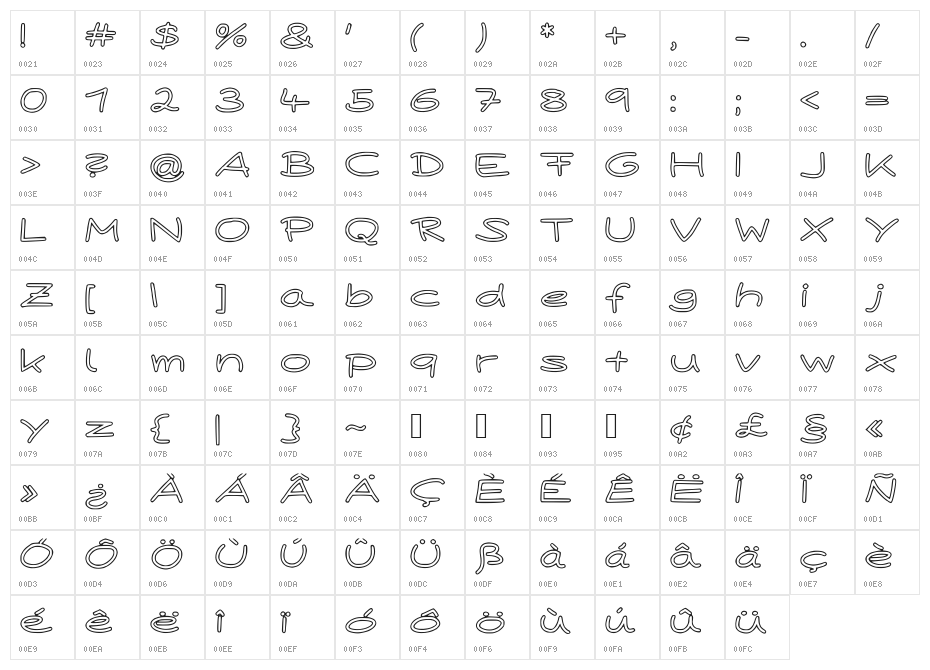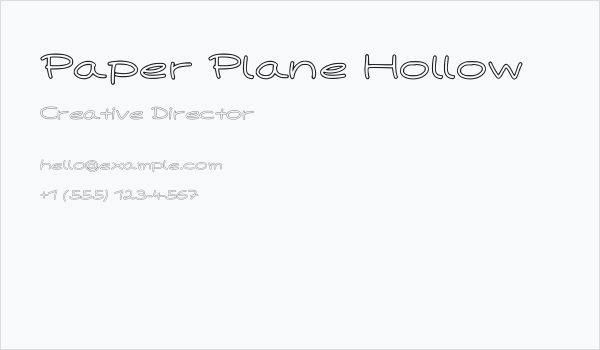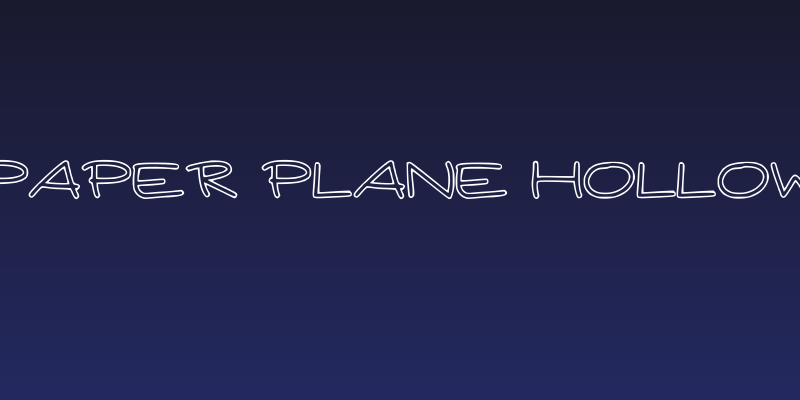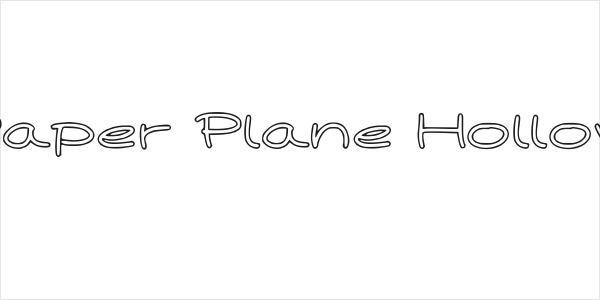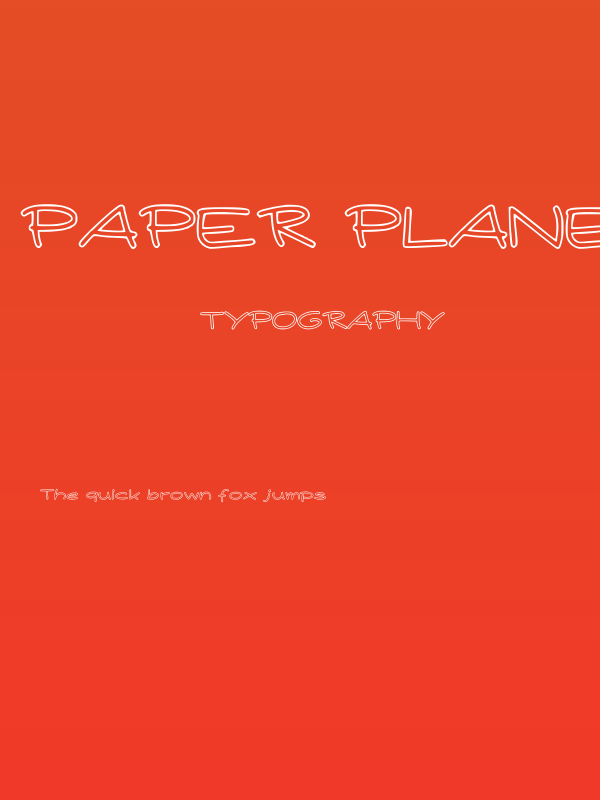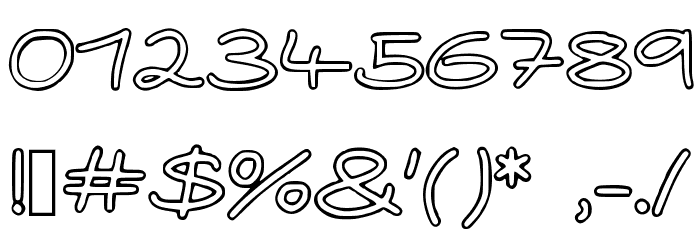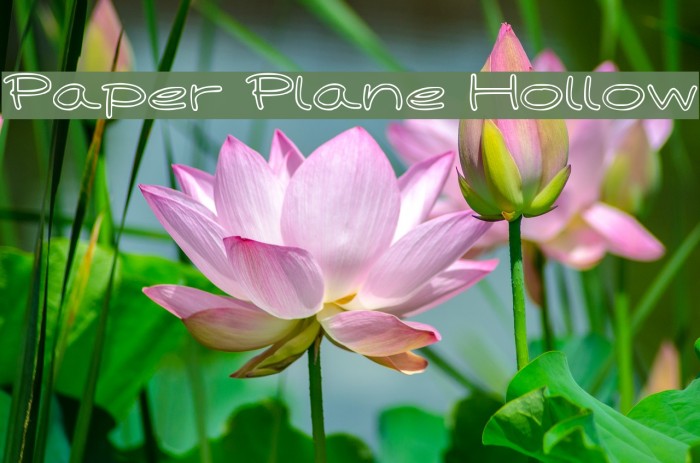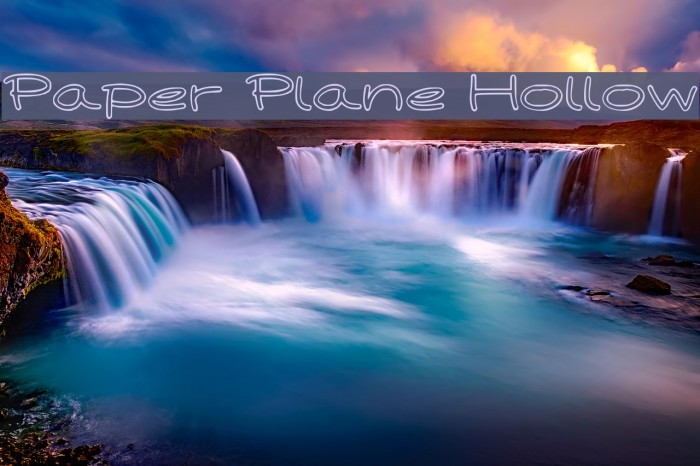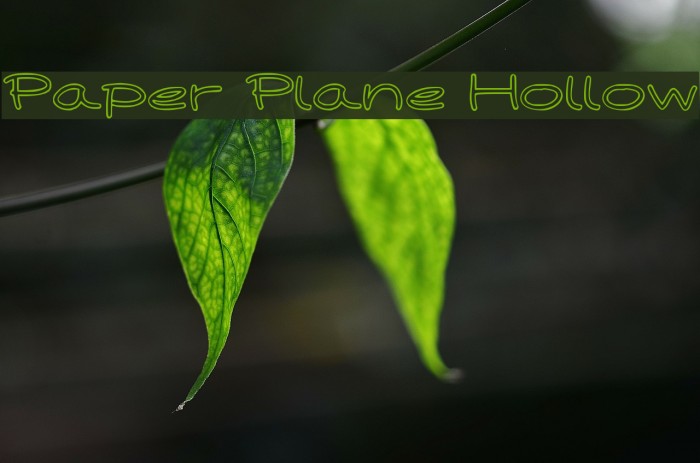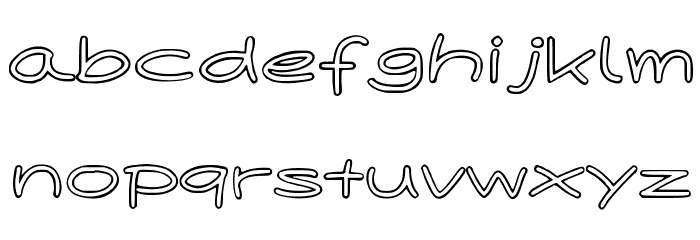
Paper Plane Hollow Font
Paper Plane Hollow Description
This font features a playful and whimsical design with hollow, outlined characters that give it a light and airy feel. The letters are crafted with smooth, rounded edges and a consistent stroke width, creating a cohesive and harmonious appearance. The uppercase and lowercase letters maintain a uniform style, while the numbers and special characters complement the overall aesthetic. This font's unique outline style makes it stand out, offering a modern twist on traditional typography. Its legibility is maintained despite the decorative nature, making it suitable for various creative applications.
| Overall Style | Modern, Decorative |
| Proposed Projects | Ideal for children's books, playful branding, greeting cards, and creative posters. |